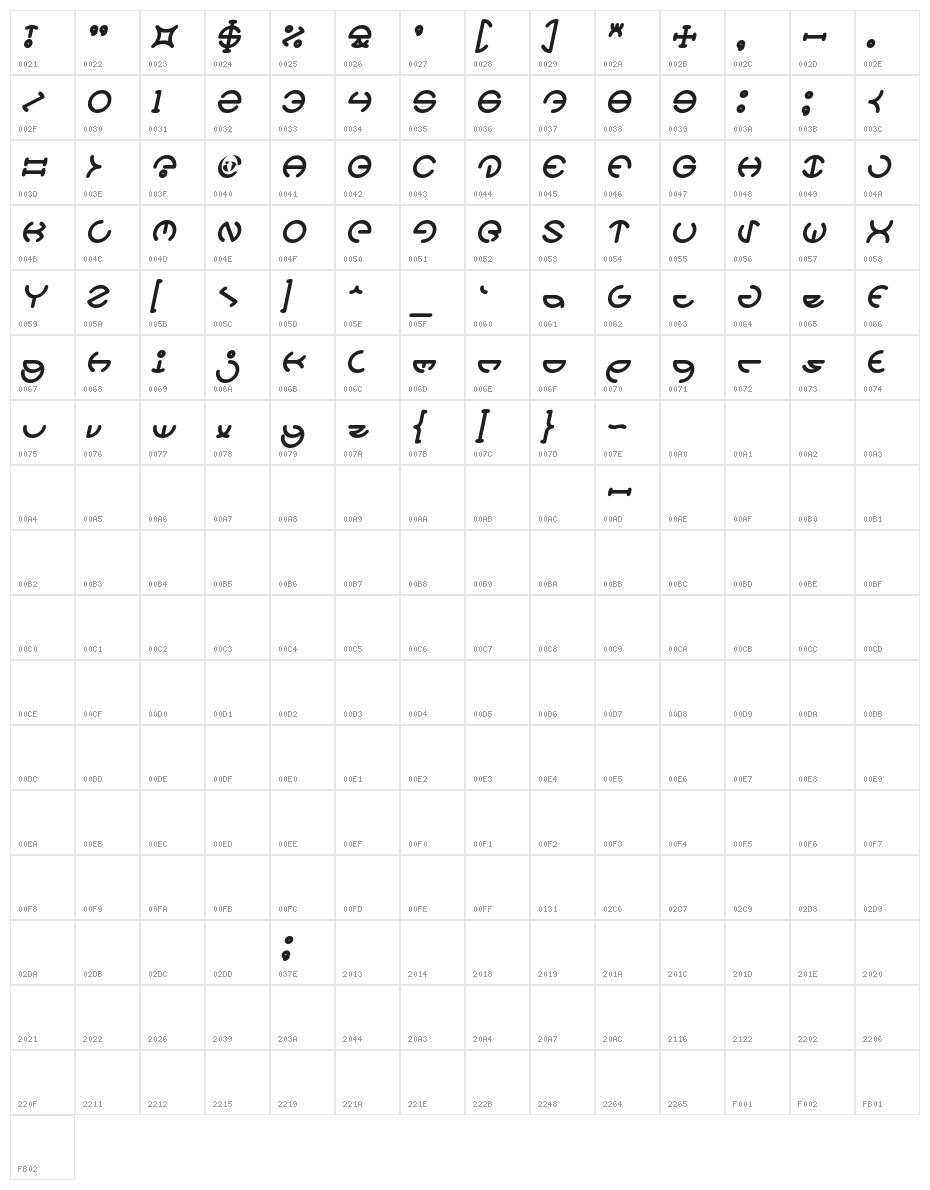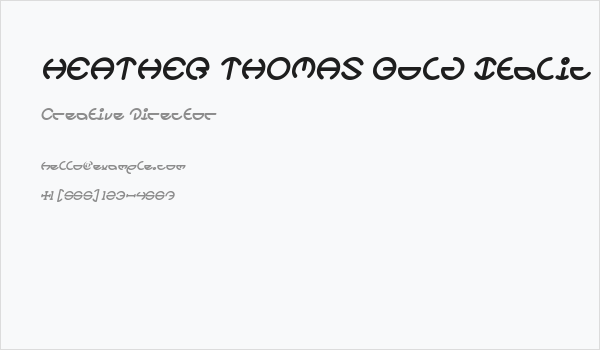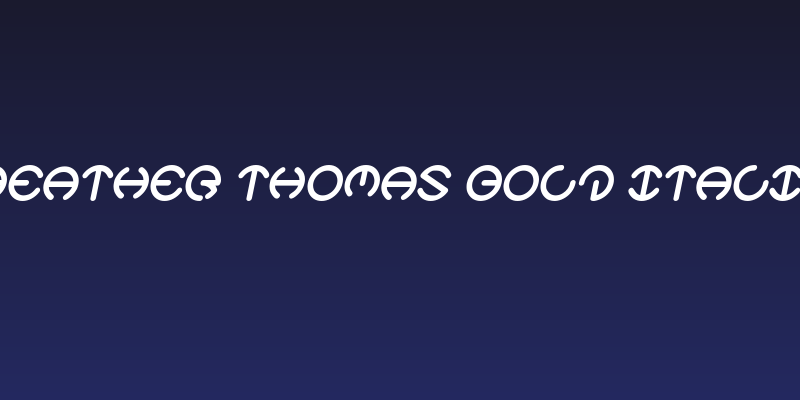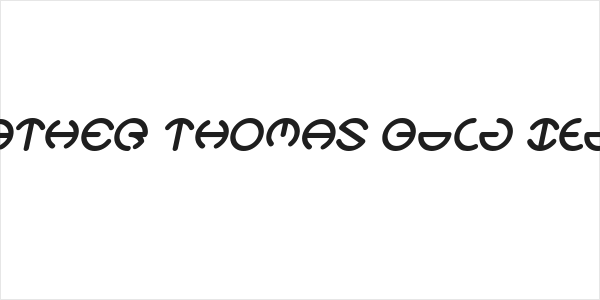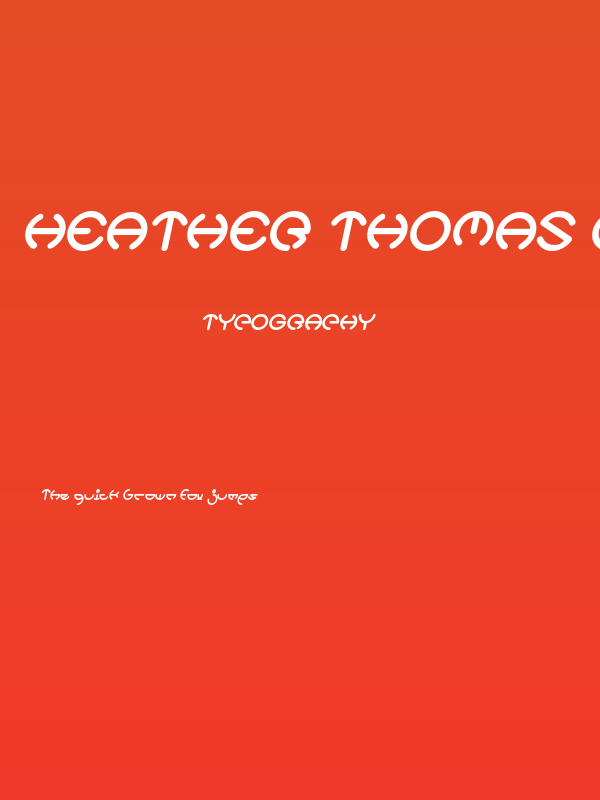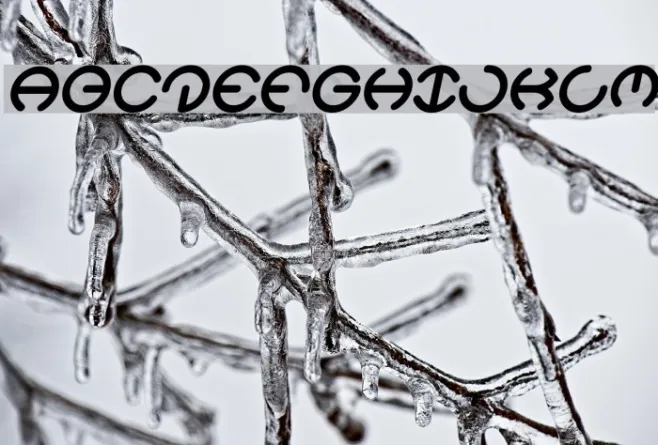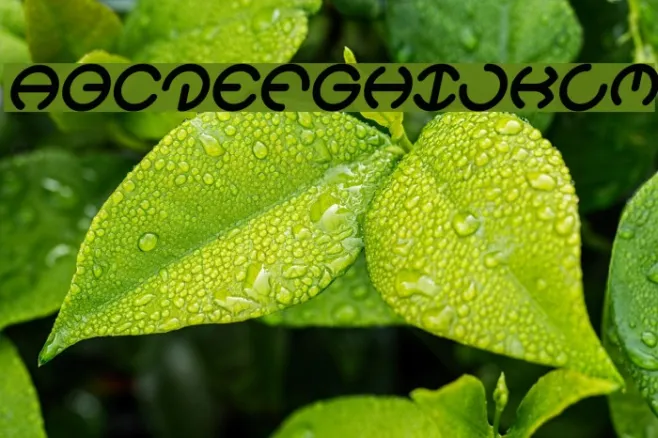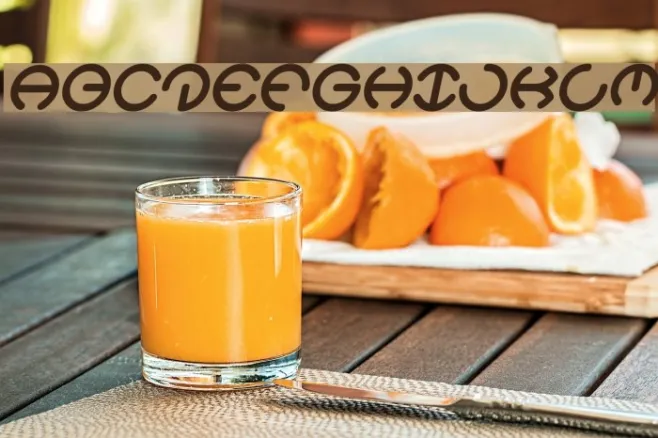
HEATHER THOMAS Bold Italic Font
HEATHER THOMAS Bold Italic Description
This font exhibits a unique and playful style with its bold and italicized characters. Each letter is crafted with a distinct rounded and flowing form, giving it a whimsical and artistic appearance. The uppercase and lowercase letters maintain a consistent design, emphasizing curves and loops that create a sense of movement and fluidity. The numbers and special characters follow the same design principles, ensuring uniformity across the font. Its bold weight and italic slant add to its dynamic and eye-catching nature, making it suitable for creative and expressive projects.
| Overall Style | Playful, Artistic, Whimsical |
| Use Case | Headlines, Logos, Creative Projects |
| Proposed Projects | Ideal for children's books, playful branding, creative posters, and artistic invitations. |